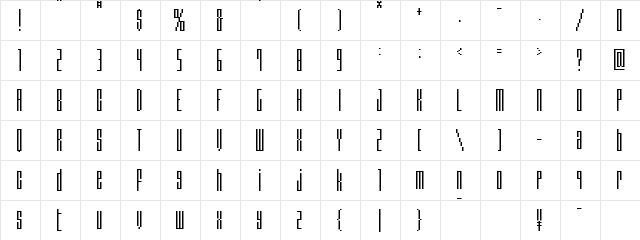
BM cinema A16
Design Context for BM cinema Typeface
BM cinema offers clean, dependable letterforms without strong stylistic allegiance, making it a practical choice for designers who need flexibility.